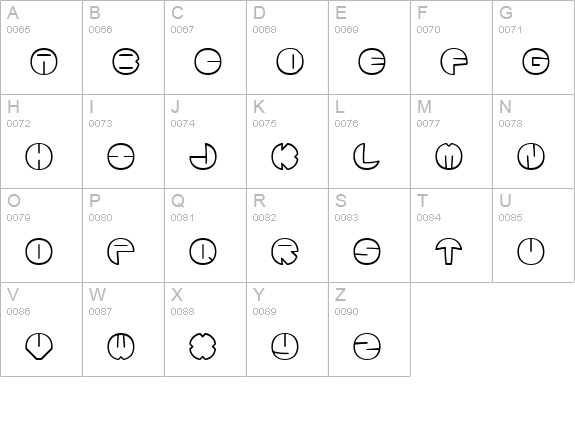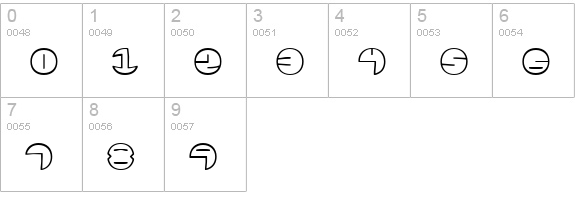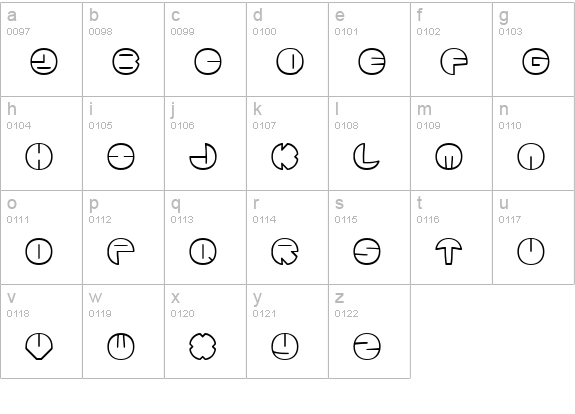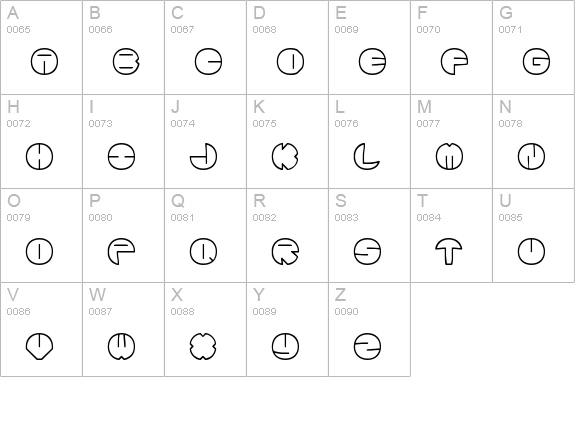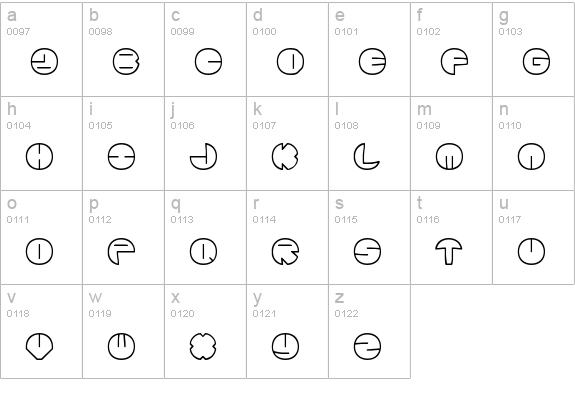
Zurklez Outline (BRK) Font Details
Zurklez Outline (BRK) font is a modern and stylish typeface that exudes creativity and sophistication. With its sleek and edgy outline design, this font is perfect for making a bold statement in your design projects. Whether you're working on a logo, poster, or website, Zurklez Outline (BRK) font will add a touch of elegance and modernity to your work. The best part? Zurklez Outline (BRK) font is completely free to download at FontsMarket.com. This means you can access this amazing font without any cost, making it a fantastic choice for designers on a budget or anyone looking to enhance their projects with a high-quality typeface. Don't miss out on the opportunity to elevate your designs with Zurklez Outline (BRK) font today!